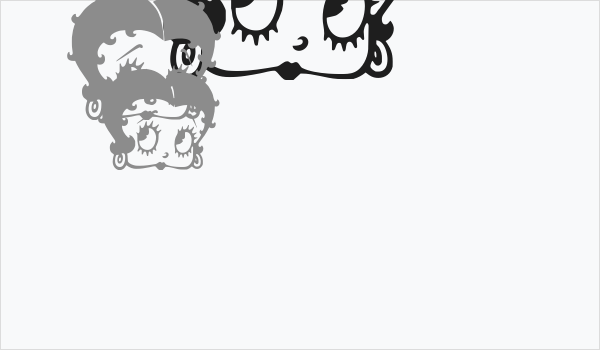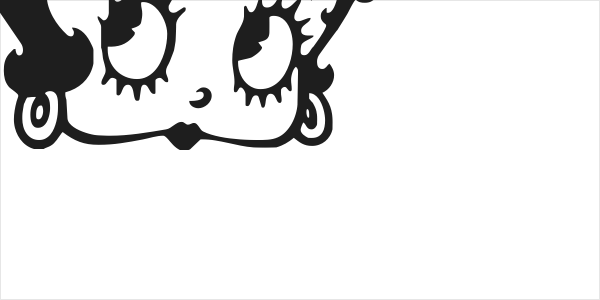
GrimNatwickBettyBoop Font
GrimNatwickBettyBoop Description
| Overall Style | Vintage, Playful, Cartoon |
| Use Case | Headlines, Logos, Titles, Display text |
| Proposed Projects | Children's books, animation titles, retro-themed branding, comic strips, and playful logos. |